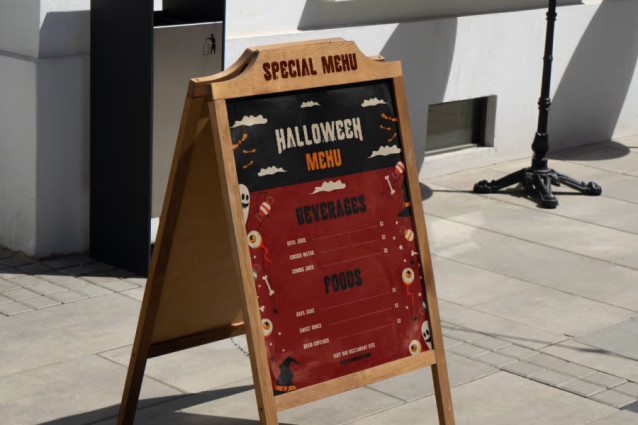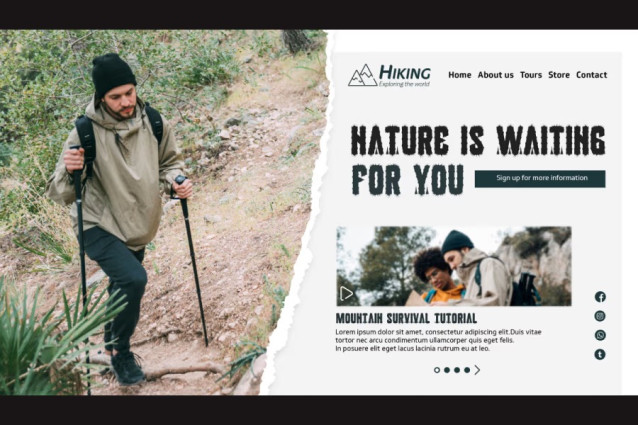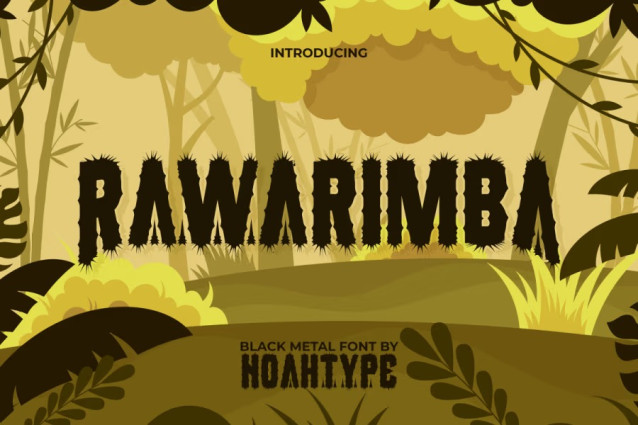
Rawarimba Black Metal Font
Rawarimba Black Metal Font is a gaming adventure and horror blackmetal font with mysterious but playful sense. The shapes of this font can give a natural feel to the design and remind you of trees and cacti. It will be perfect for any designs, such as custom design, brand image, poster, label, invitation, cover, marketing material, menu, printing, product packaging, quotes, signage, website, and many more!
Rawarimba Font includes full set of ALL CAPS for Uppercase and Lowercase Basic Characters, Numerals, Punctuation, Symbol, and Alternate Character. This playful font will make your design awesome and also a perfect choice for many industries, such as game, movie, comic, music, accessories, advertising, art, café, event or festival, fashion, printing, publishing, etc.